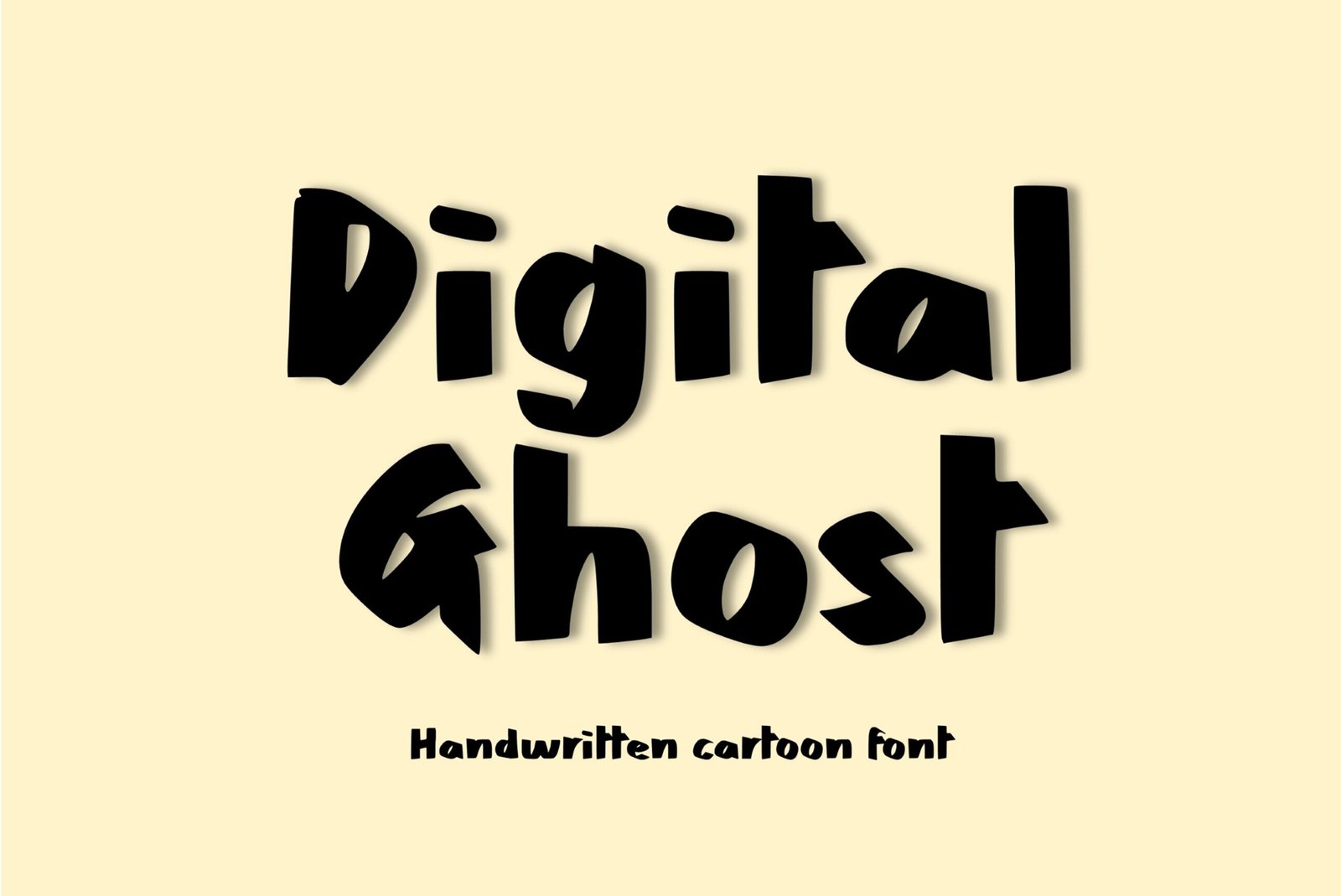
Digital Ghost Font
Handwritten cartoon font. “Digital Ghost”. Perfect for goodnotes, note taking, advertising and display purposes, including banners, book covers, shirts, posters, logos and much more!
Font includes all upper and lowercase letters, numbers, characters, and punctuation.